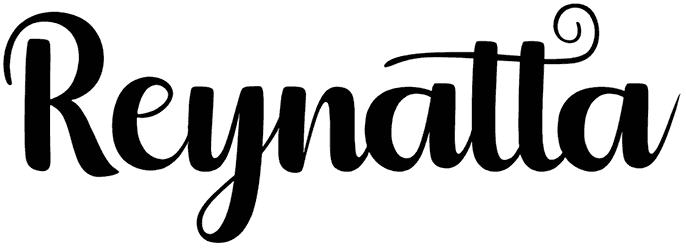
Reynatta Font
Beautify your writing with a warm, curly, and adorable style and receive the most pleasant feedback with the manuscript face. This romantic font will throw an organic and modern vibe into your designs. Set Reynatta on gr…
Beautify your writing with a warm, curly, and adorable style and receive the most pleasant feedback with the manuscript face. This romantic font will throw an organic and modern vibe into your designs. Set Reynatta on greeting cards, posters, flyers, and others the same, and you will reach a fabulous design.